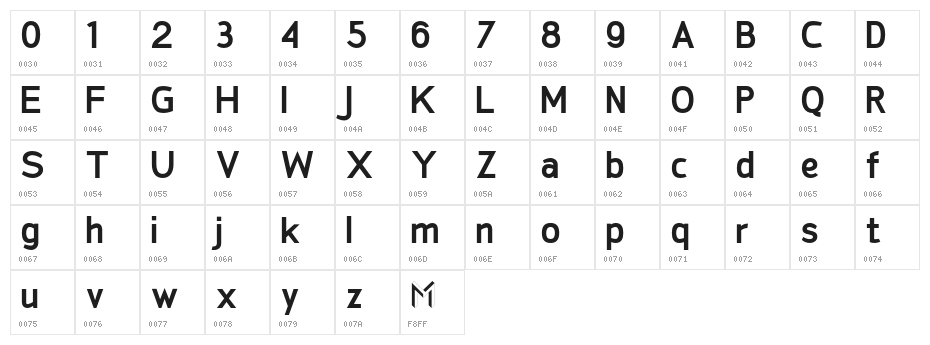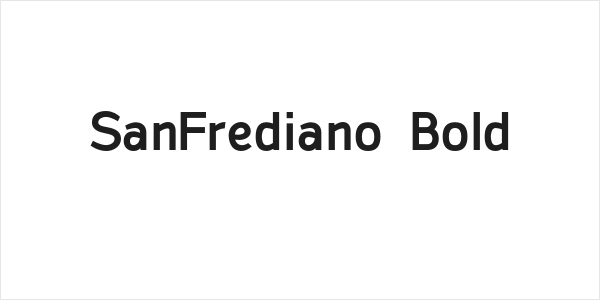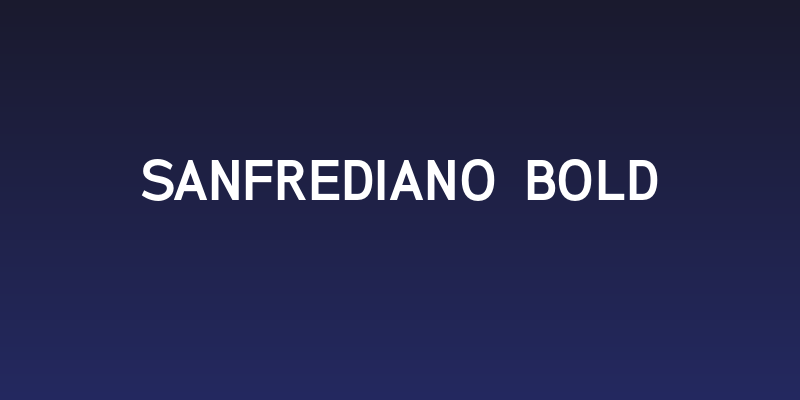
SanFrediano-Bold Font
SanFrediano-Bold Description
This font features a bold and modern sans-serif design with clean lines and a strong presence. The characters are well-proportioned, offering a balanced and harmonious look. The uppercase letters are slightly taller than the lowercase, providing a clear distinction. The numbers are consistent in height with the uppercase letters, ensuring readability. Special characters are designed to match the overall aesthetic, maintaining uniformity across the font. The overall appearance is sleek and professional, making it suitable for a variety of applications.